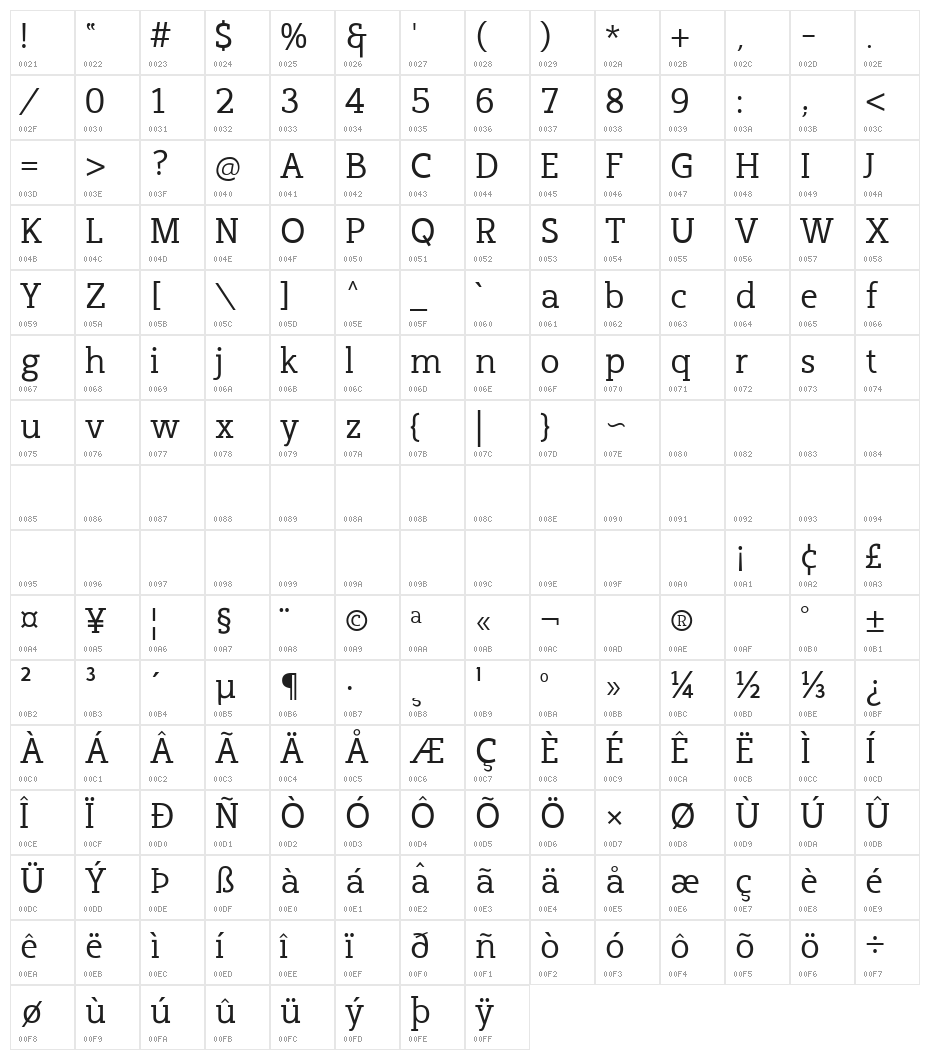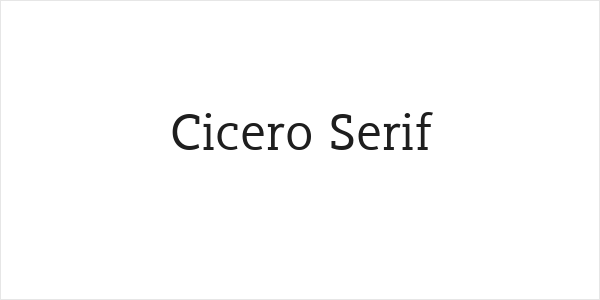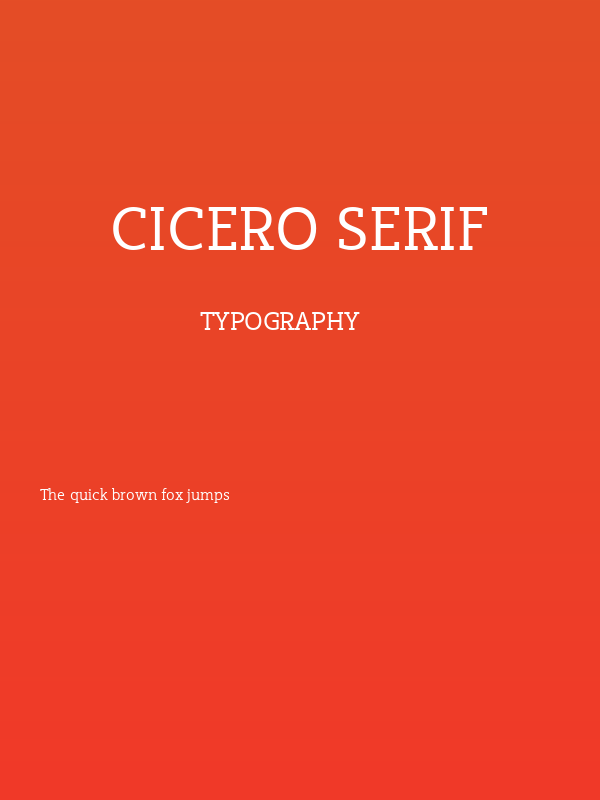
Cicero Serif Font
Cicero Serif Description
This serif font features a classic and elegant design with distinct serifs that add a touch of sophistication. The uppercase letters are bold and commanding, while the lowercase letters maintain a balanced and readable form. The numerals are clear and consistent, making them suitable for a variety of uses. Special characters are well-integrated, maintaining the font's overall aesthetic. The font's structure is both traditional and versatile, making it ideal for formal documents, print media, and branding projects. Its readability and timeless style make it a reliable choice for conveying professionalism and authority.
Overall StyleClassic